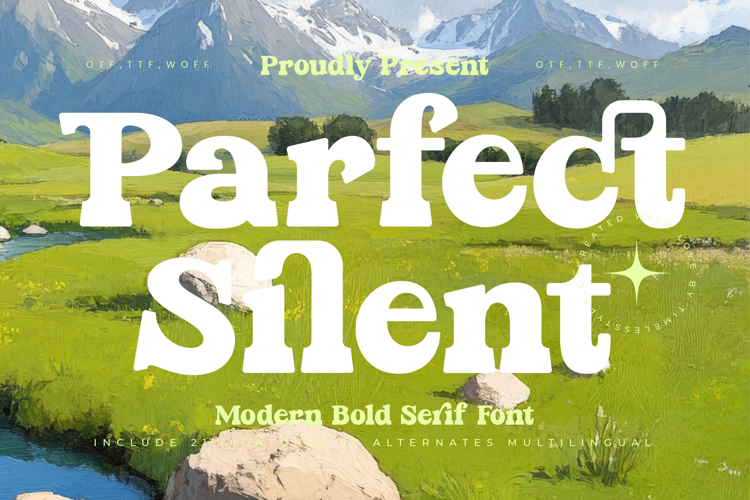
Parfect Silent - Modern Bold Serif Font
Parfect Silent is a modern bold serif font that combines strength, playfulness, and timeless charm. With its chunky letterforms, high contrast serifs, and smooth curves, this typeface delivers a confident yet friendly aesthetic, making it suitable for a wide range of design applications. Designed with 27 ligatures and 76 alternates, Parfect Silent offers plenty of creative flexibility, ensuring every composition feels unique, dynamic, and full of character.
This font excels in headline typography, where its bold presence immediately captures attention across posters, banners, and editorial layouts. In branding and logo design, Parfect Silent communicates reliability and creativity, making it a perfect choice for lifestyle products, artisanal brands, and businesses aiming for a bold yet approachable identity. Its strong forms and stylistic alternates also make it ideal for packaging design, especially for food, beverages, cosmetics, and artisanal goods, where typography must stand out on the shelf.
Parfect Silent shines in advertising campaigns, event promotions, and social media graphics, where its alternates and ligatures add personality and variety to every message. For editorial spreads, merchandise, and lifestyle projects, the font provides warmth and individuality, turning typography into a focal visual element.
With multilingual support, Parfect Silent adapts seamlessly to global projects, making it versatile for both local and international audiences.
Ultimately, Parfect Silent is more than just a serif font—it is a design tool for bold, stylish, and expressive storytelling. Whether used for headlines, branding, packaging, or digital media, it ensures projects radiate confidence, creativity, and unforgettable charm.